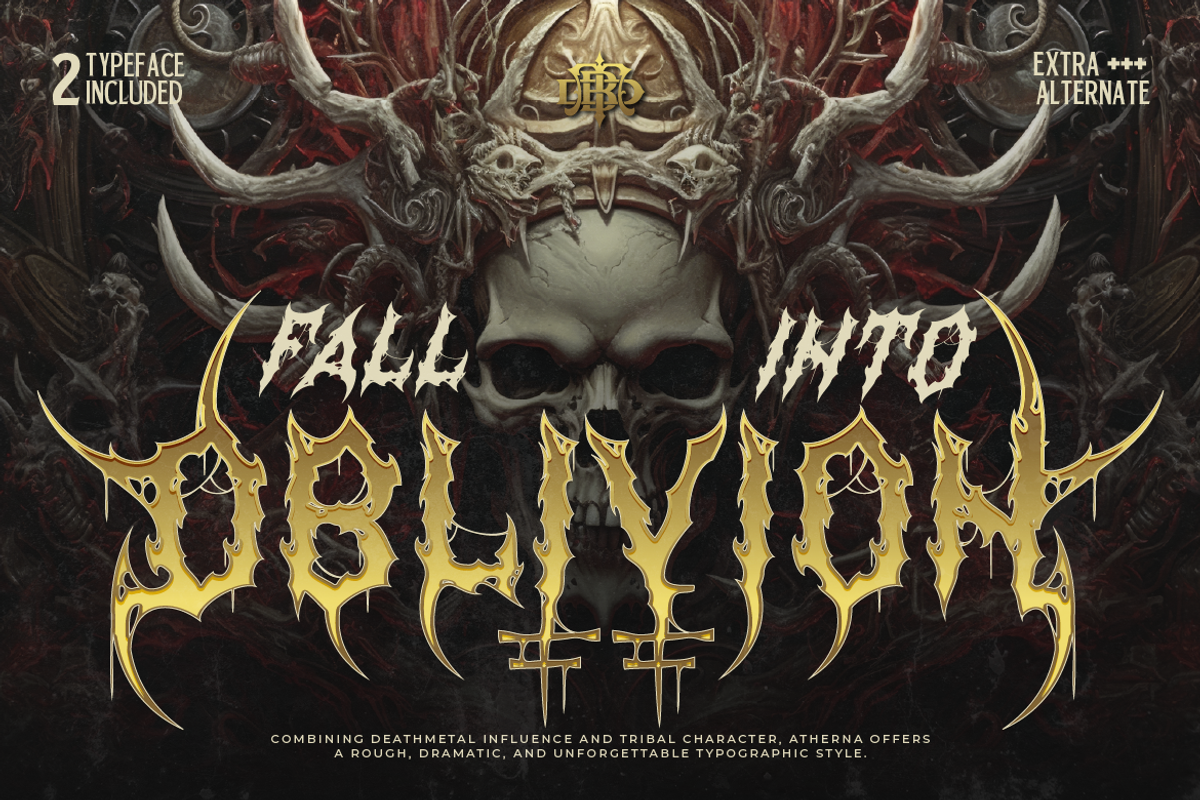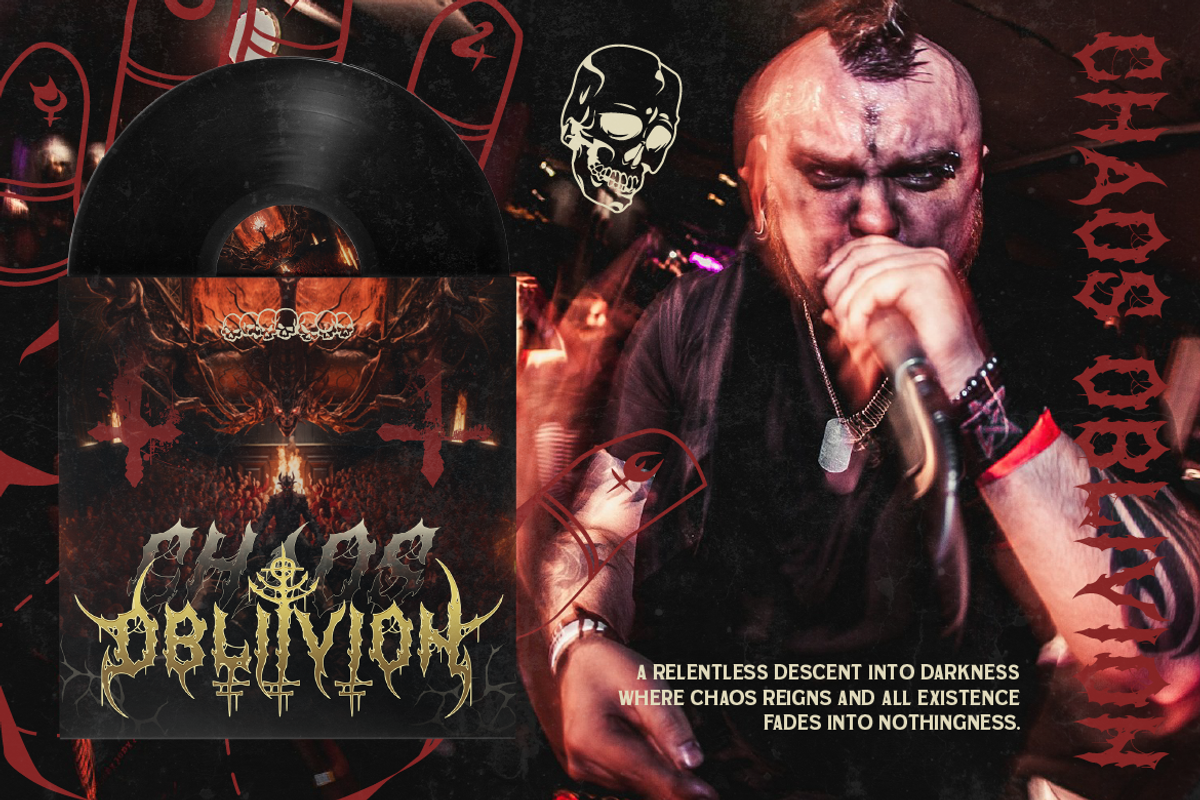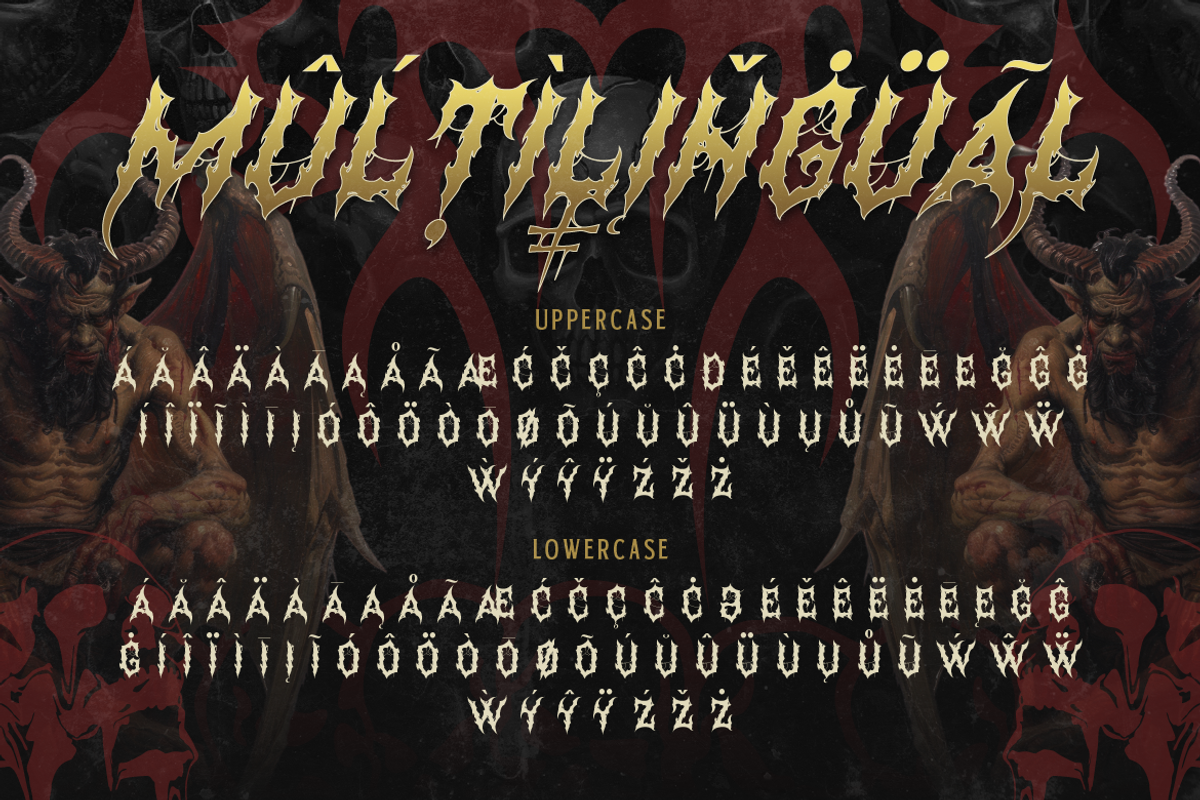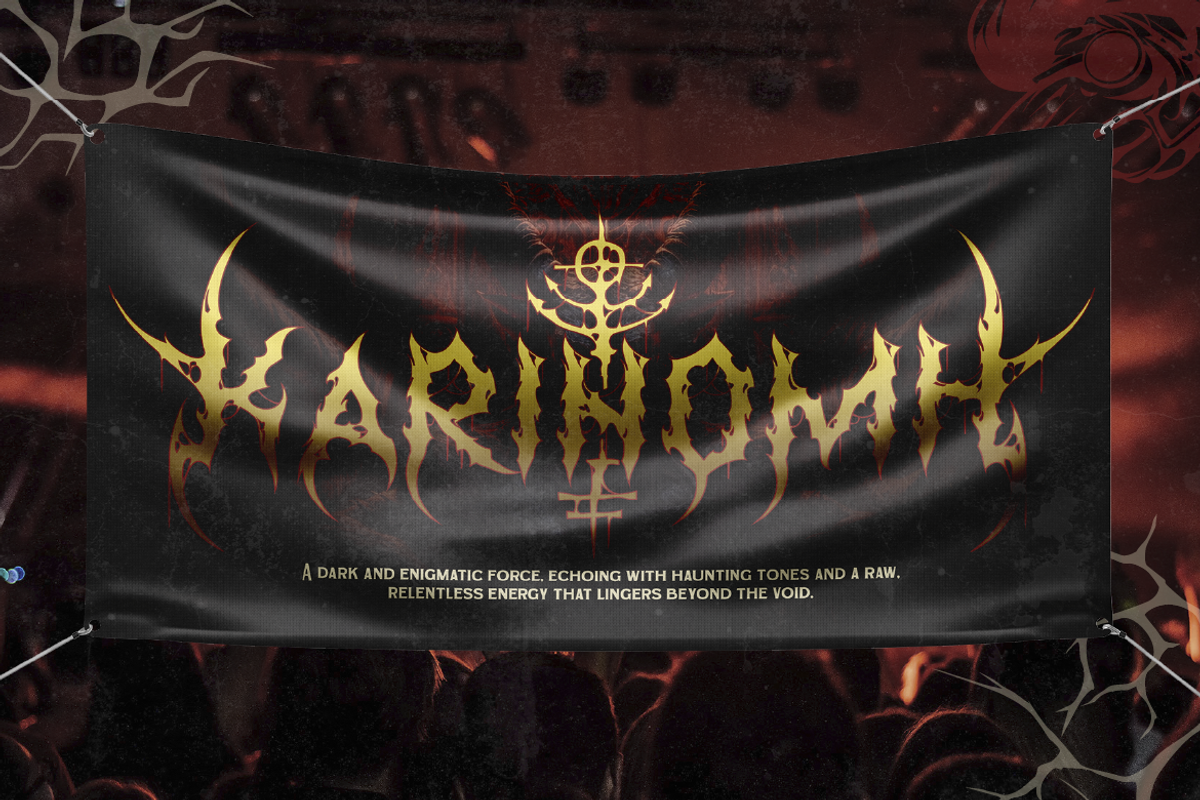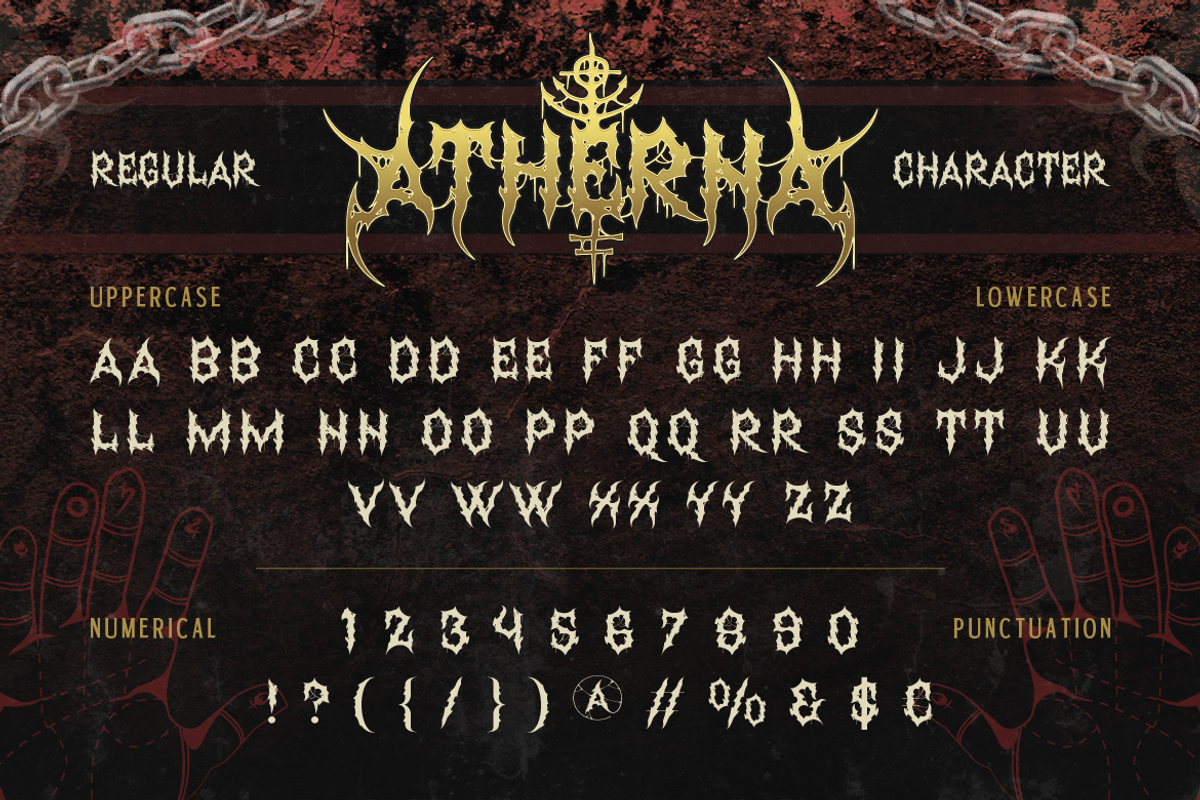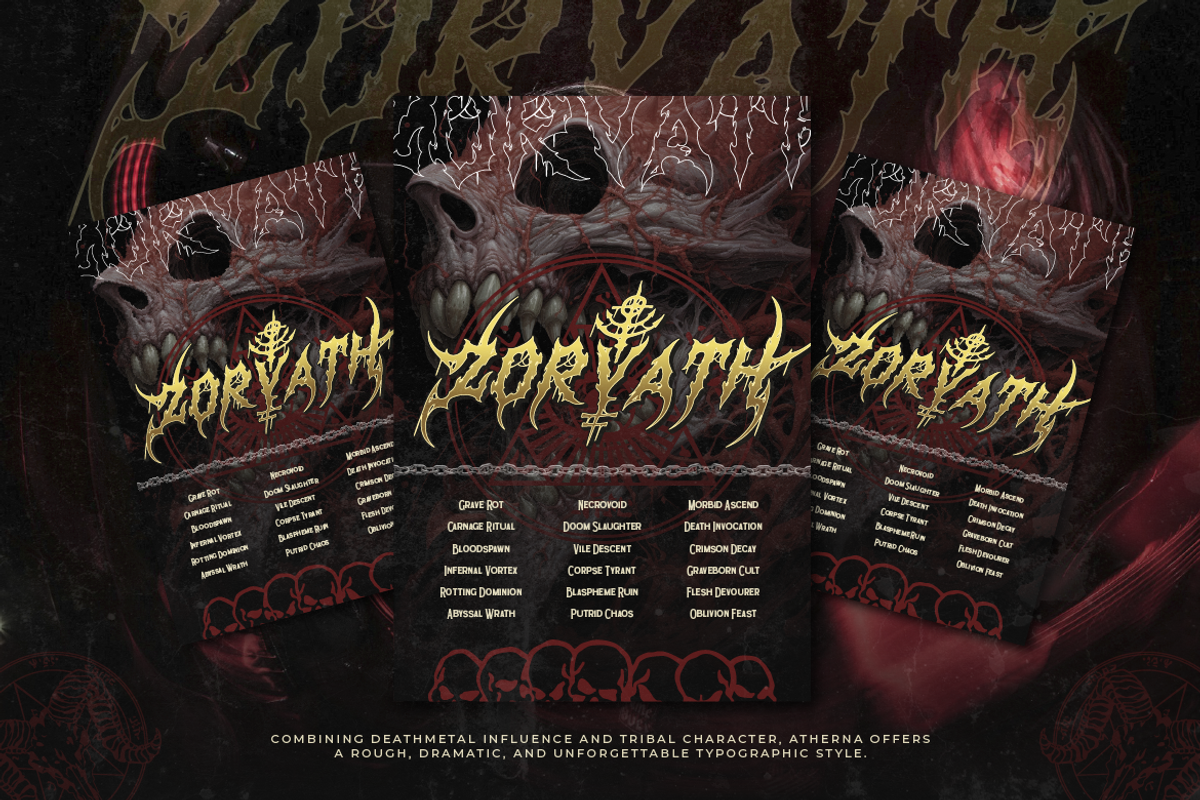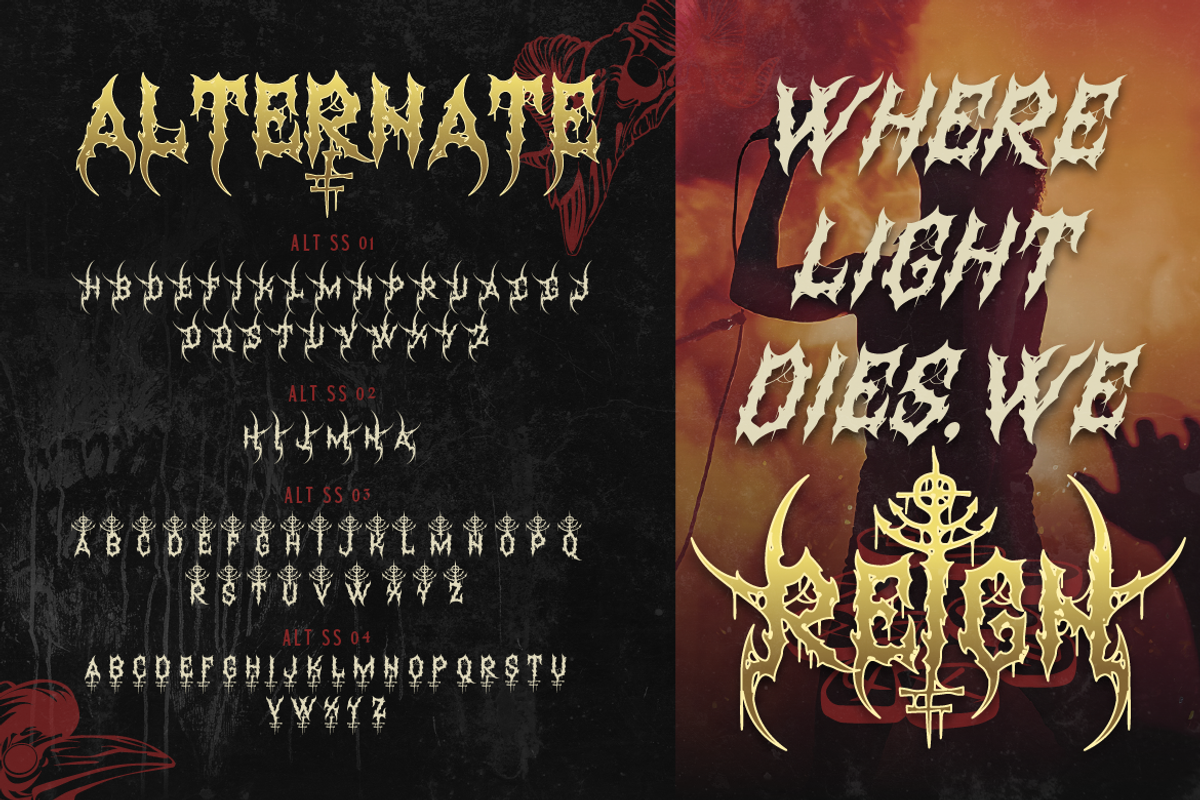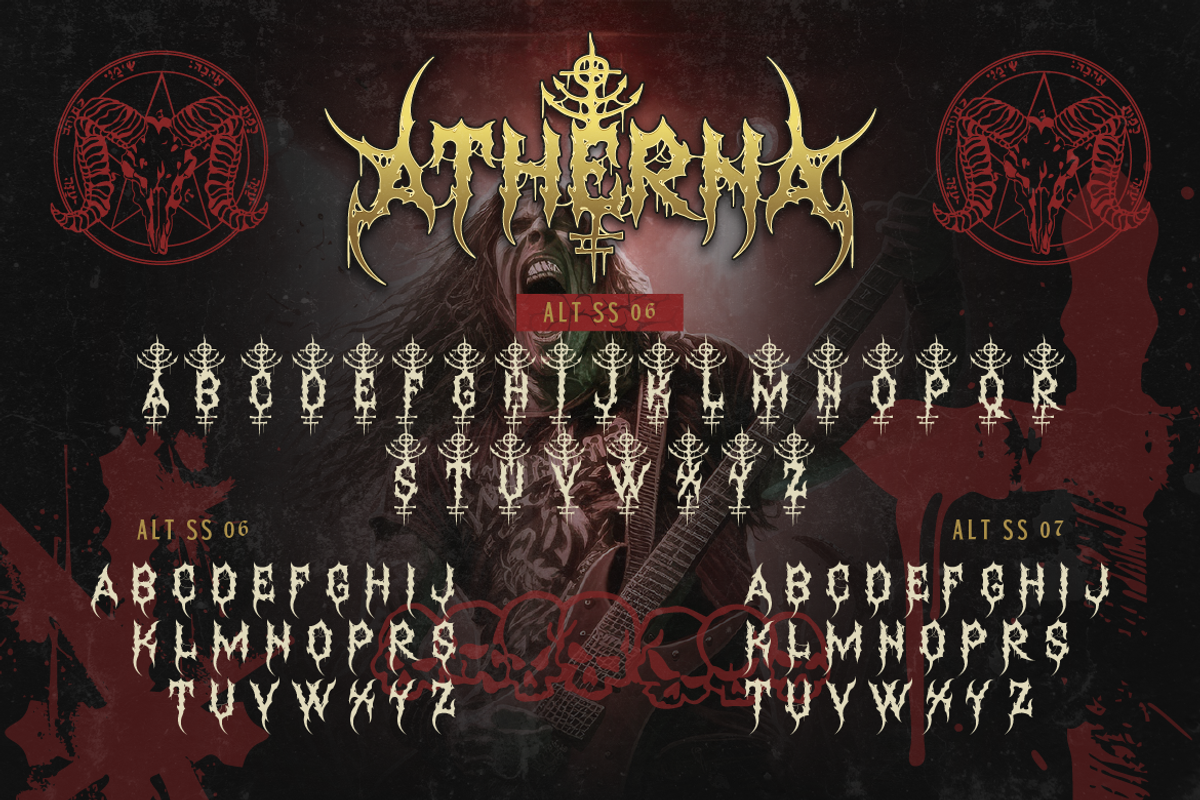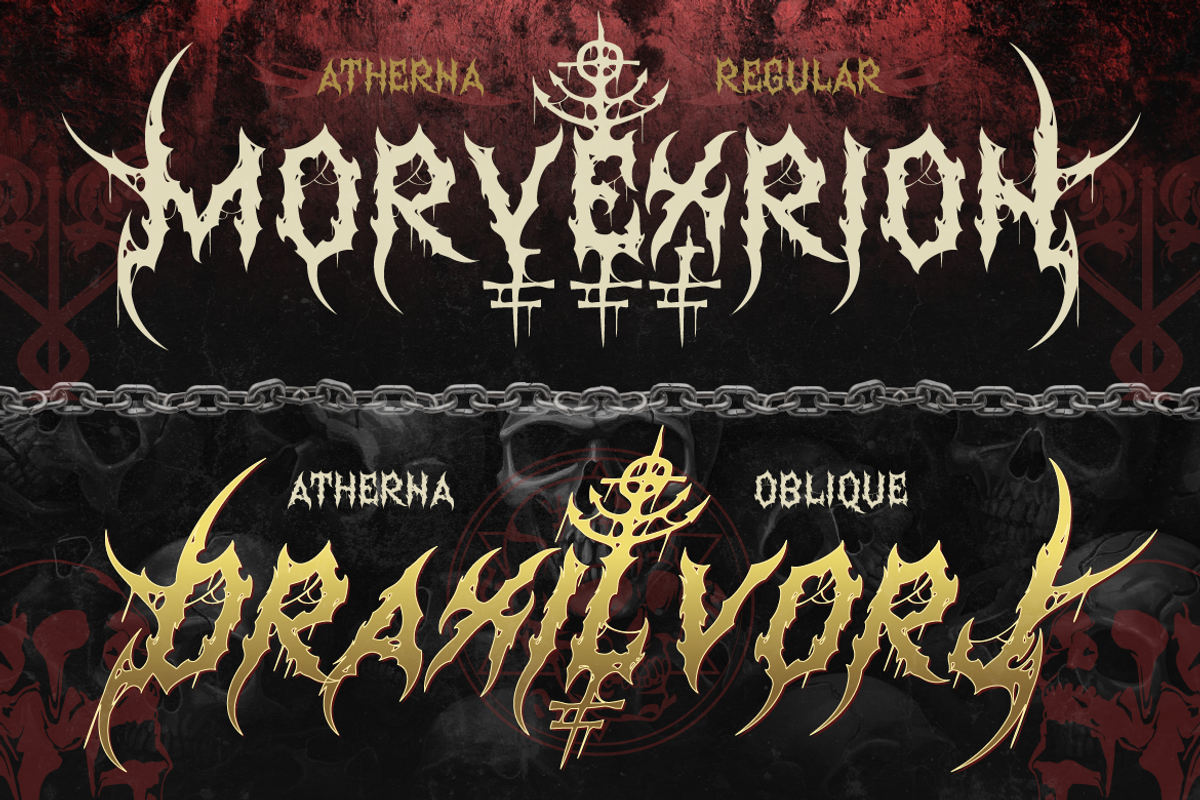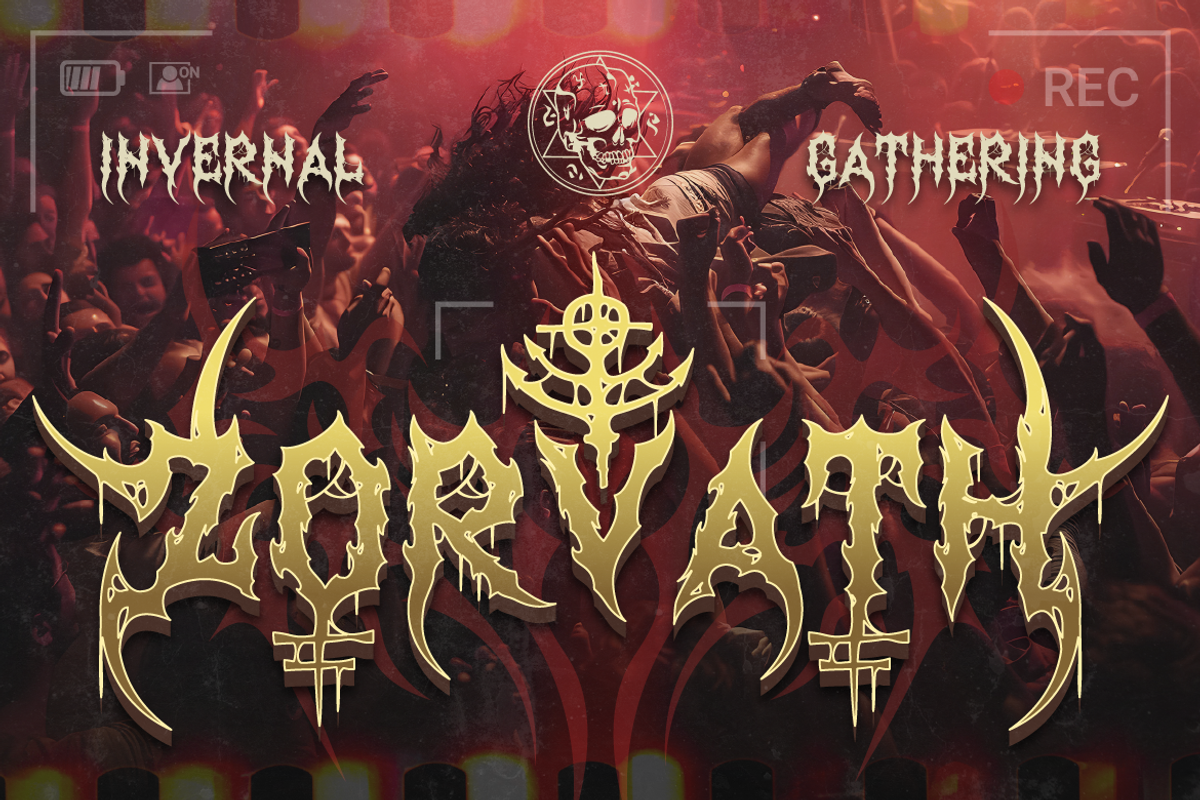
Atherna
Born from chaos and forged in darkness, Atherna is a brutal death metal typeface that captures the raw energy of extreme music and underground culture. Every letter feels like it’s carved with rage sharp, twisted, and unpredictable, blending death metal aesthetics with tribal influences to create a look that’s both savage and hypnotic. This font doesn’t try to be clean or perfect. Instead, it embraces distortion, aggression, and noise, making it the perfect choice for designs that demand attention and attitude. From band logos and album artwork to gig posters and dark branding, Atherna brings a powerful visual identity that feels loud, heavy, and unapologetically bold.